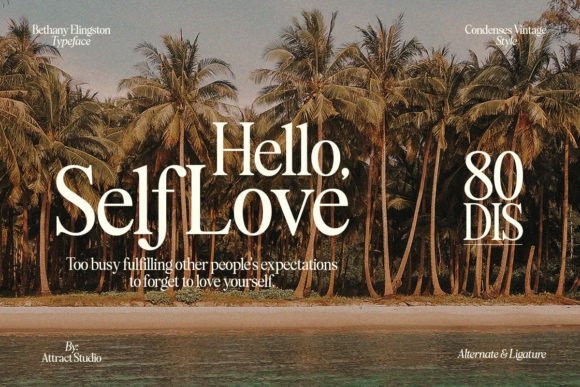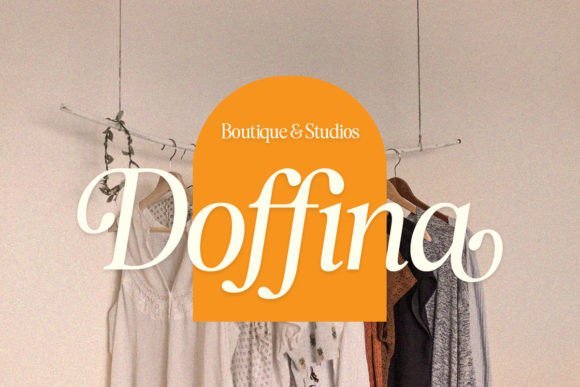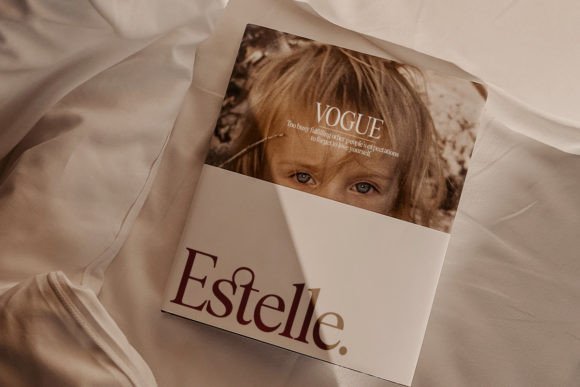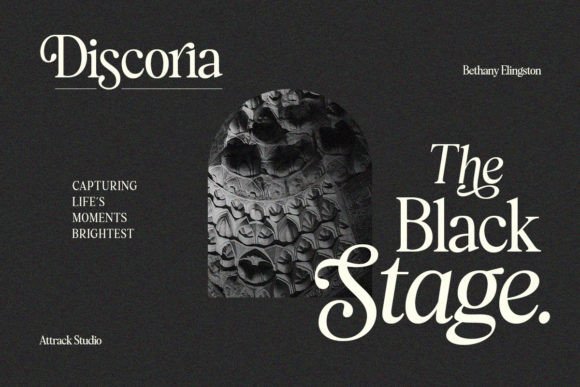
Bethany Elingston Font
Attract Studio
Bethany Elingston is a serif font with contrasting characters inspired by old-style and condensed serifs. No matter the topic, this font will be an incredible asset to your fonts’ library, as it has the potential to elevate any creation.